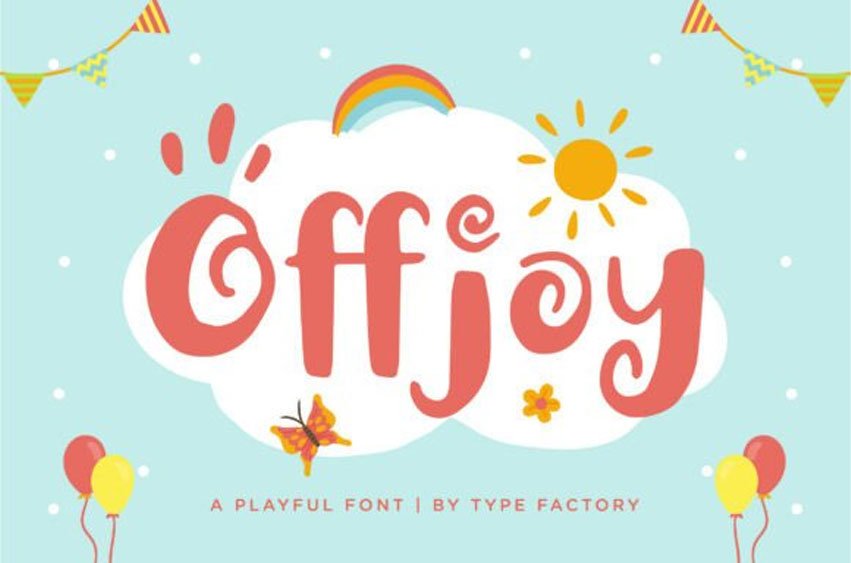
Offjoy Font is a playful display font featuring rounded shapes, soft curves, and a hand-drawn character style.
The letterforms are bold and friendly, creating a cheerful visual tone suitable for expressive typography.
This typeface is designed primarily for headlines and works well for children book covers, kids branding, toy packaging, birthday invitations, classroom materials, merchandise graphics, stickers, and social media visuals.
Offjoy includes uppercase and lowercase characters, numerals, punctuation, stylistic alternates, ligatures, and multilingual support. The structure is optimized for short text compositions and large display settings rather than long paragraphs.